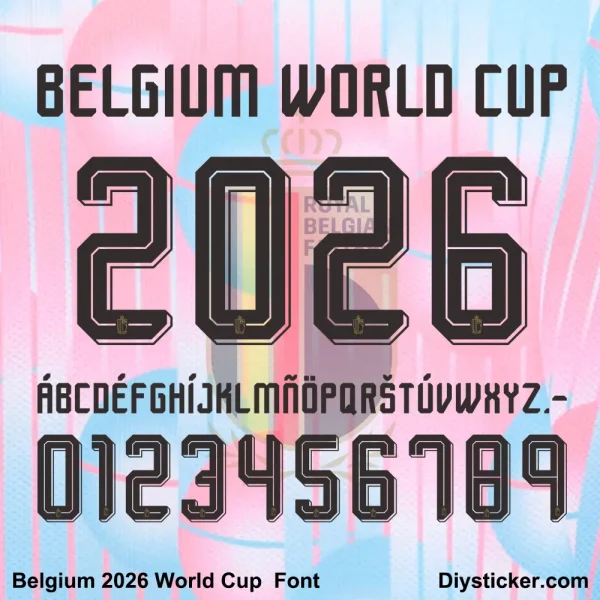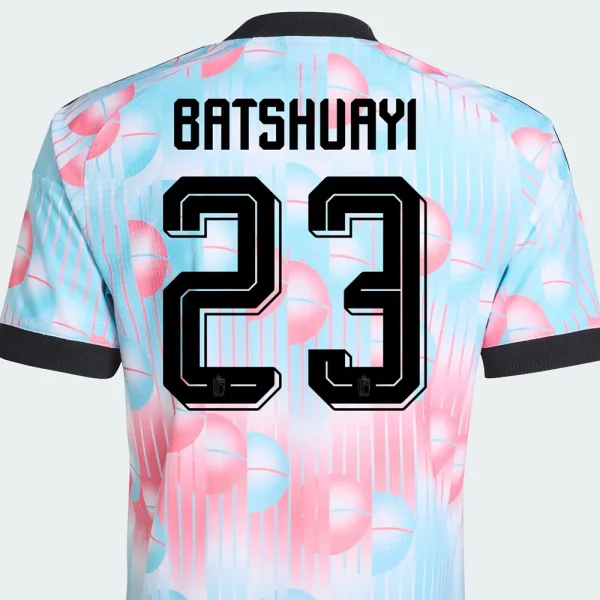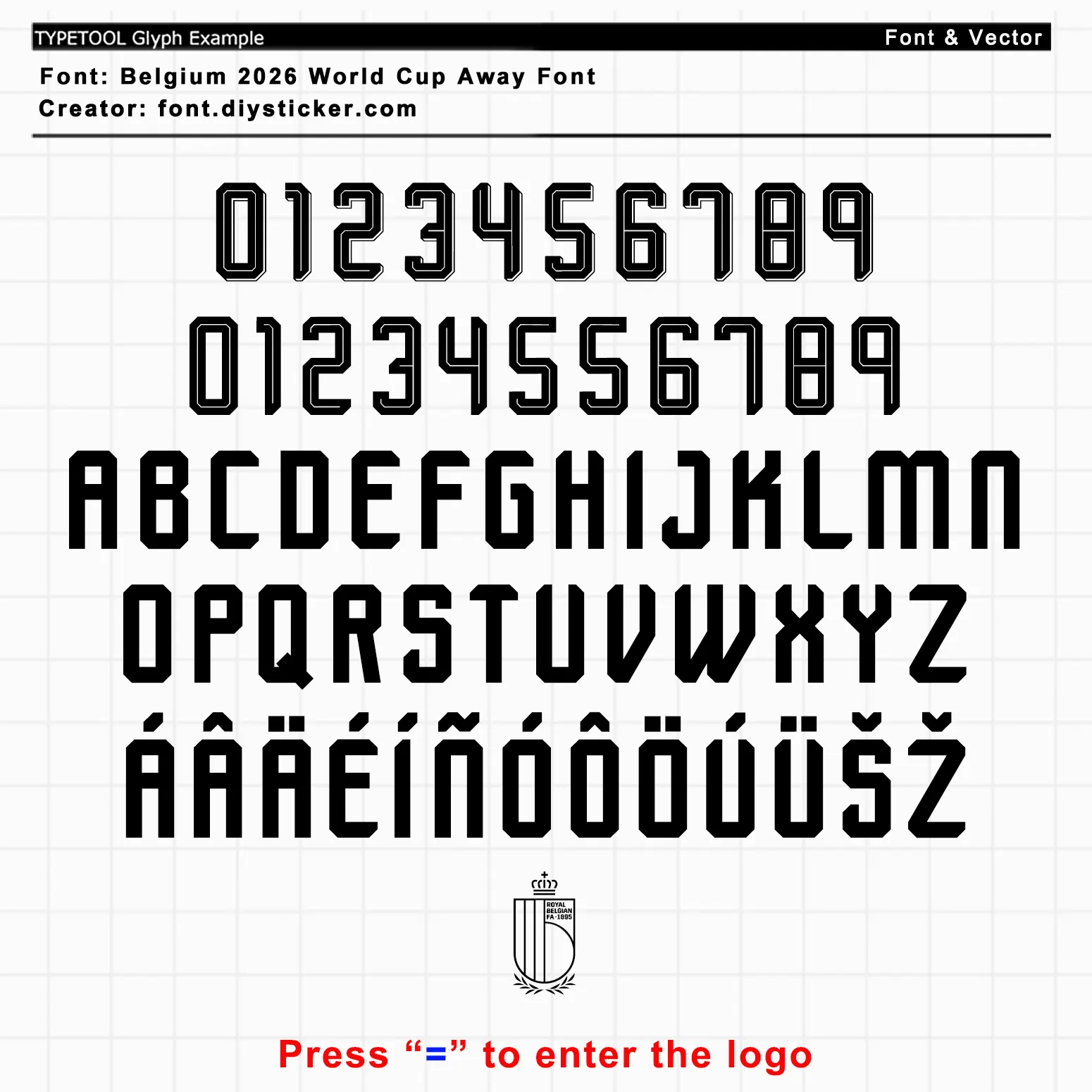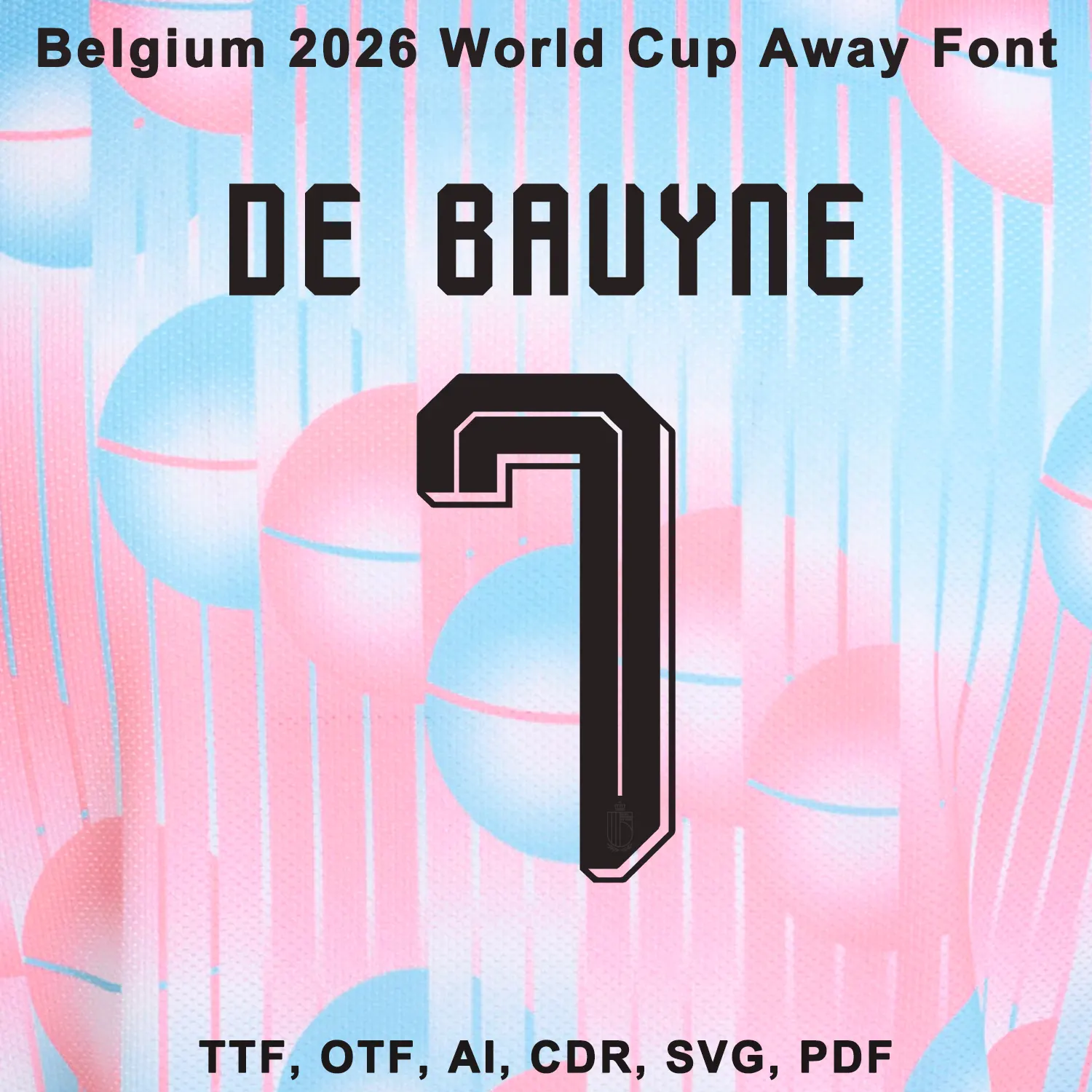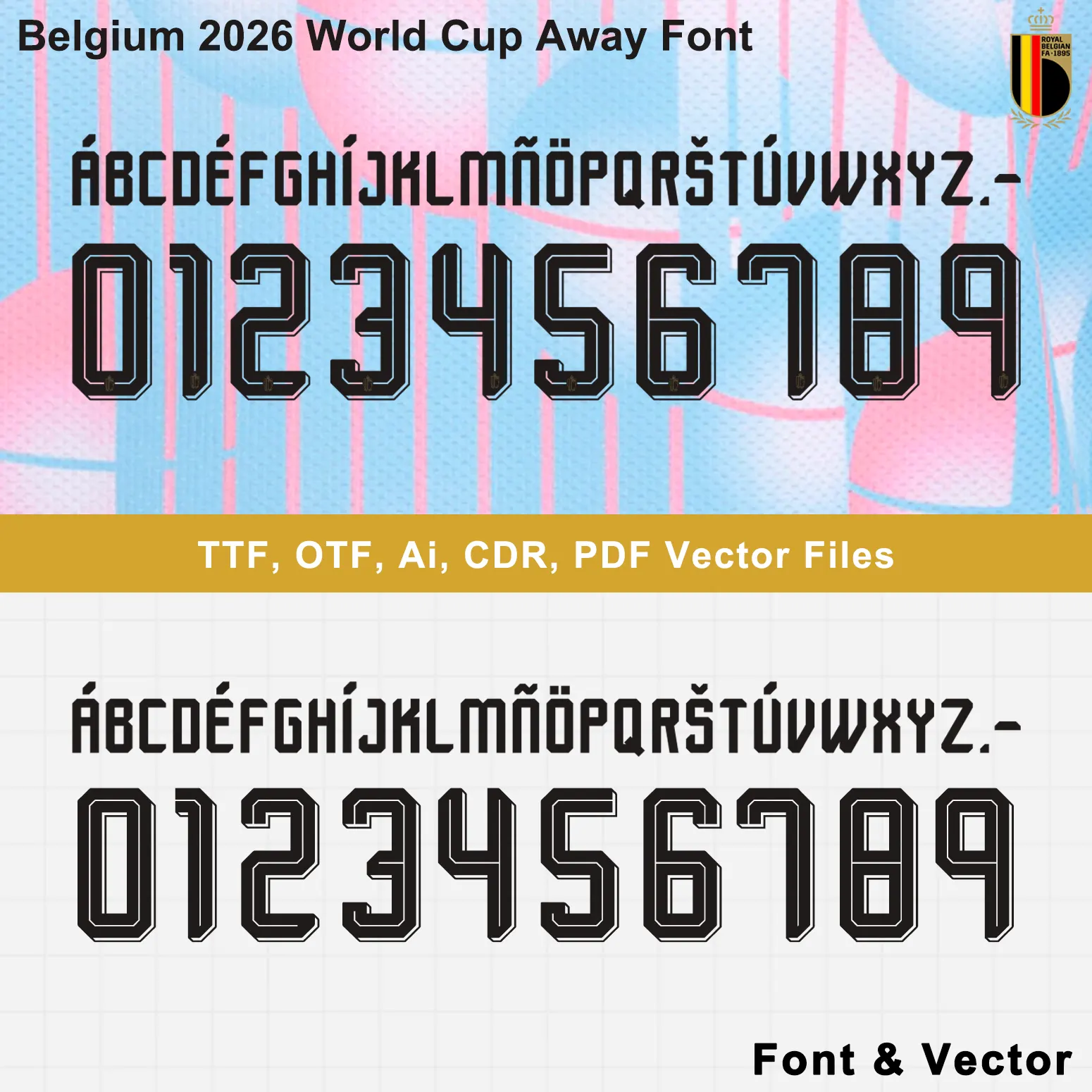
Belgium 2026 World Cup Away Font – Complete Vector Set
Celebrate the golden generation of Belgian football with the Belgium 2026 World Cup Away Font. This digital typeface is inspired by the sleek, modern typography associated with Belgium’s away kit aesthetic for the 2026 FIFA World Cup, co-hosted by the USA, Canada, and Mexico.
The Belgian Red Devils have established themselves as a global football powerhouse with their technical brilliance and attacking flair. This font captures that same energy – bold, confident, and contemporary. The preview features “BELGIUM WORLD CUP” followed by the year 2026 in a striking layout, making it instantly recognizable for any Belgian football project.
Key Features
Uppercase A–Z, numbers 0–9, and period
Clean, modern, and athletic letterforms
Bold away-kit inspired typography